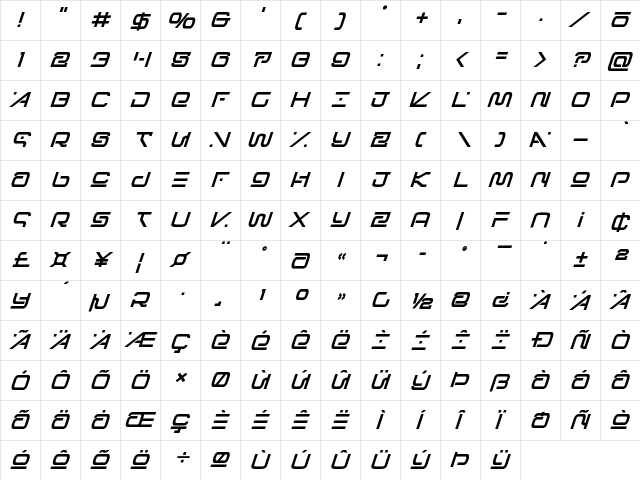
Foreign Alien Bold Italic Font Preview
Design Context for Foreign Alien Bold Italic Typeface
Foreign Alien Bold Italic takes a measured approach to typography — its balanced proportions and neutral character make it a reliable workhorse for both digital and print work. Its italic angle brings a sense of urgency and motion to the letterforms. Its bold stroke weight gives it real presence on the page.
Pro Tip: Try Foreign Alien Bold Italic for annotation and caption copy alongside an upright companion — the contrast in angle creates a dynamic but ordered typographic system.